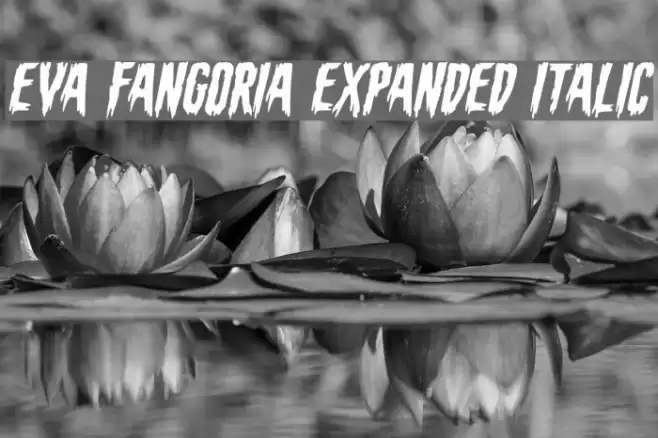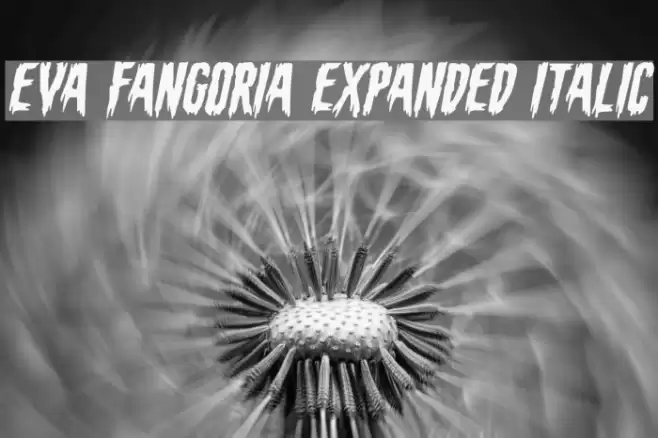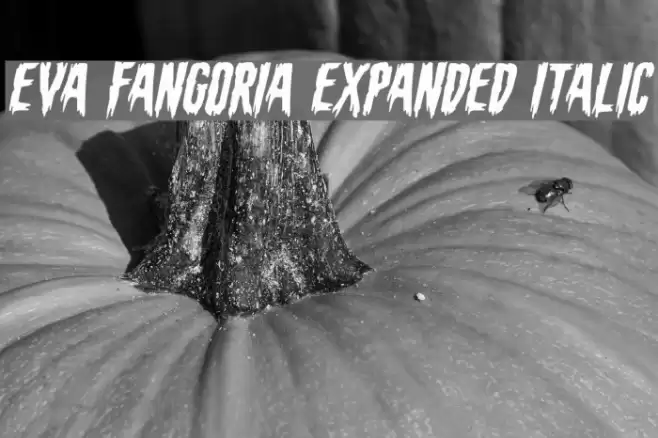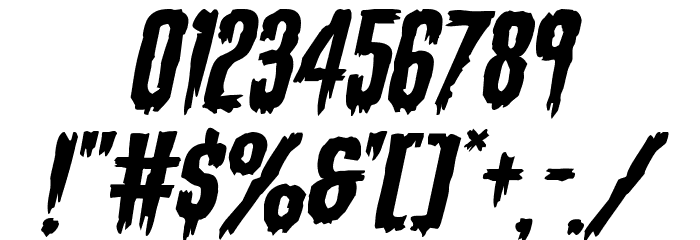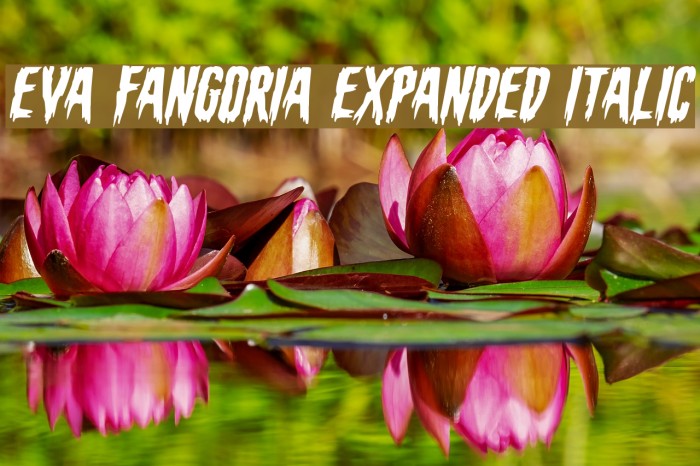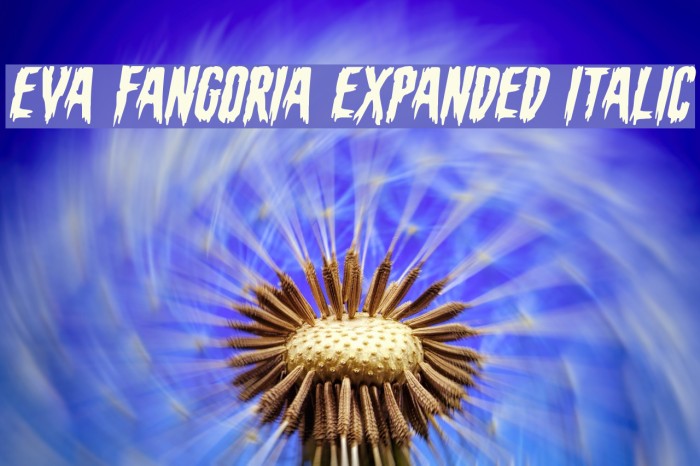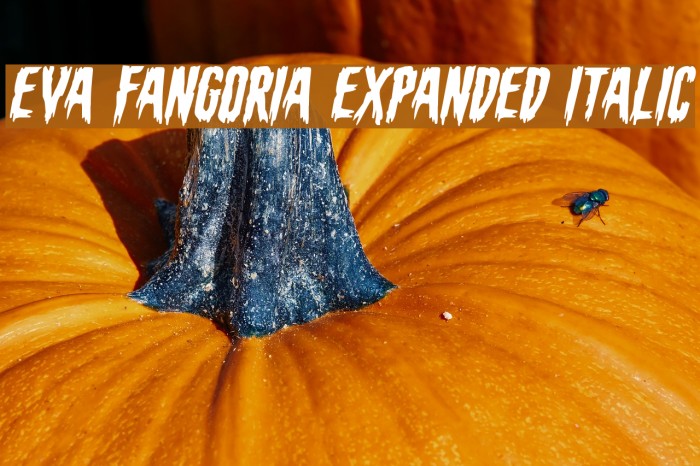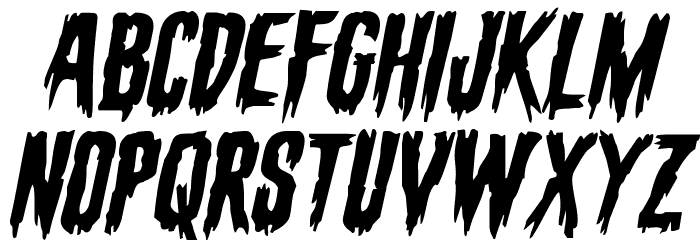
Eva Fangoria Expanded Italic Font
Eva Fangoria Expanded Italic Description
This font features a bold and dynamic style with sharp, jagged edges that give it a dramatic and intense appearance. The letters are italicized, adding a sense of movement and urgency. The expanded width of the characters enhances its boldness, making it stand out prominently. The font's design is reminiscent of horror or thriller themes, with a distressed and edgy look that captures attention. It is highly decorative and suitable for projects that require a strong visual impact. The contrast in stroke thickness is medium, providing a balanced yet striking appearance.
A bold, jagged, and italicized font with a dramatic, horror-themed style from Uncategorized fonts.
- Proposed Projects: Ideal for horror movie posters, Halloween event flyers, edgy graphic designs, and themed merchandise.